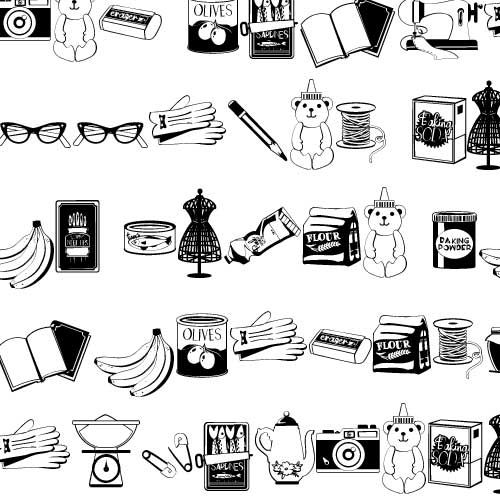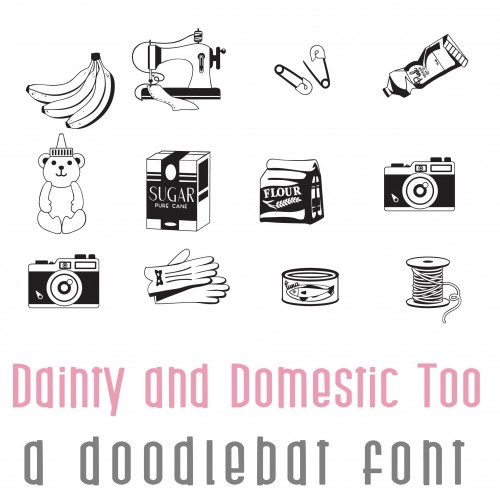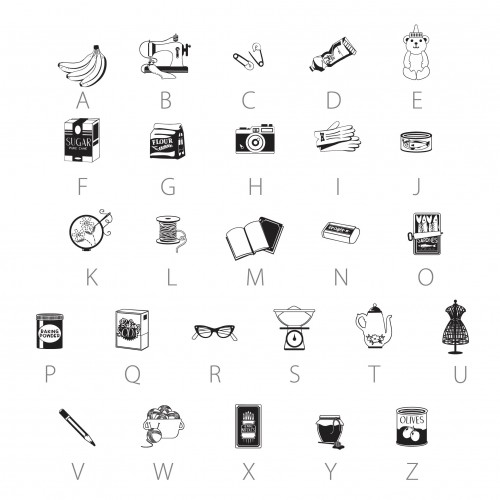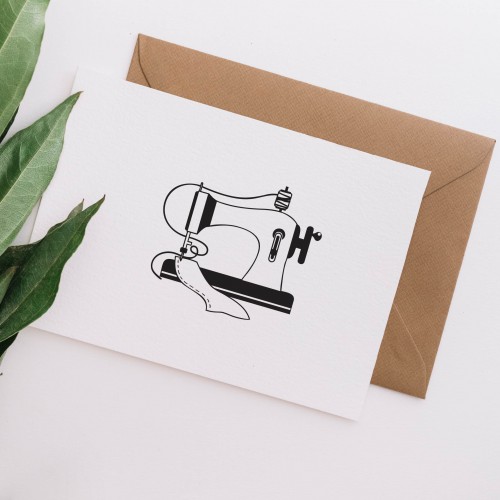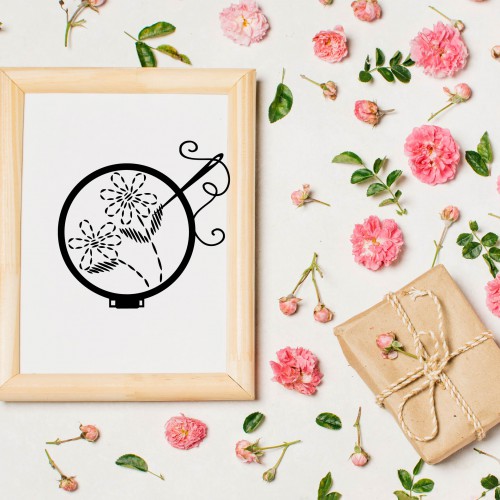
DB Dainty Domestic - Too - DB
This beautiful vintage style doodlebat features 26 more domestic elements from crafts, sewing and to the kitchen! Perfect for cards, crafts, gifts, decor, scrap booking, classrooms, planner stickers and more!